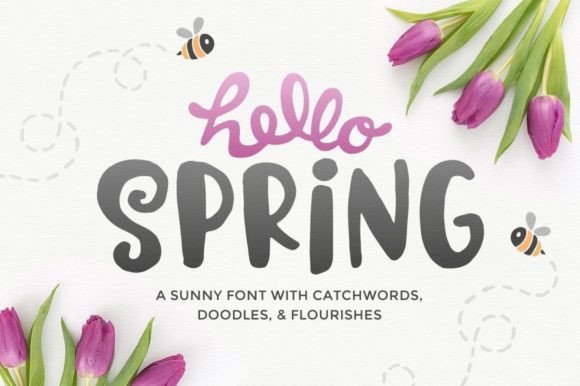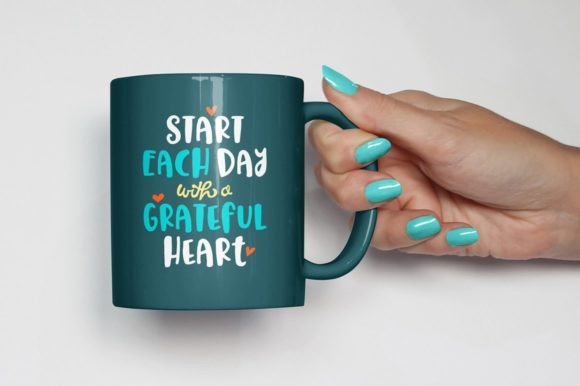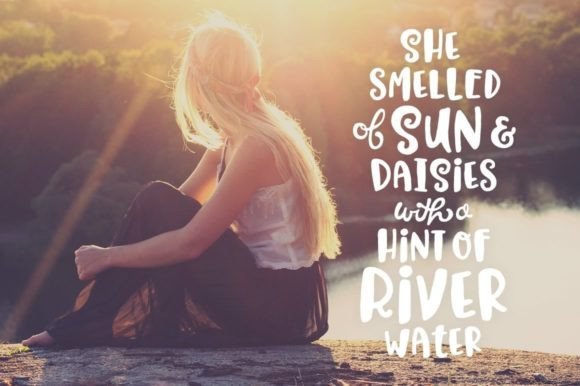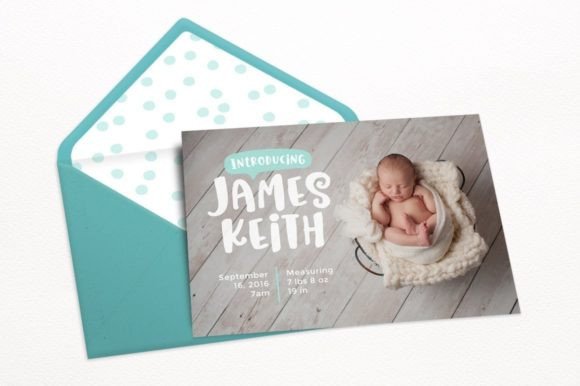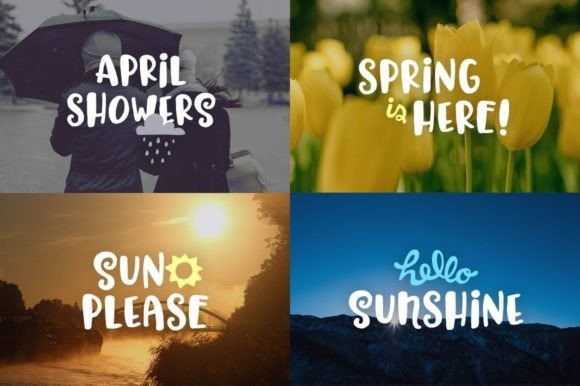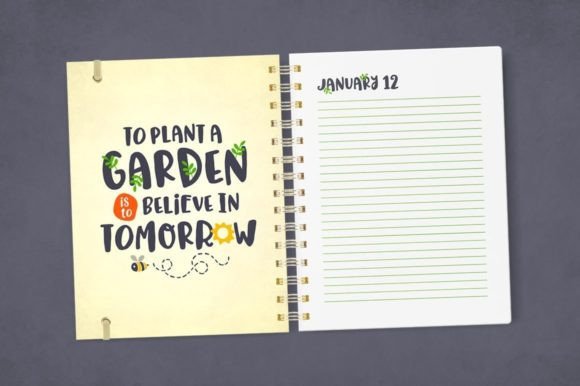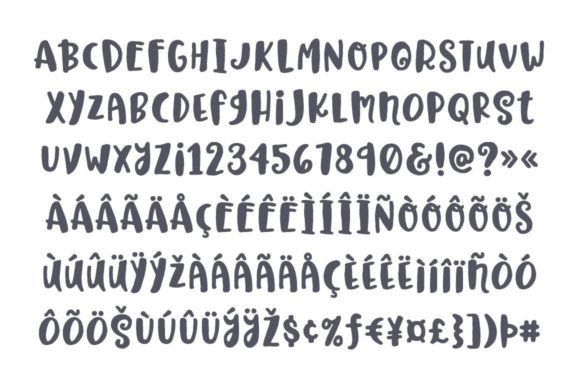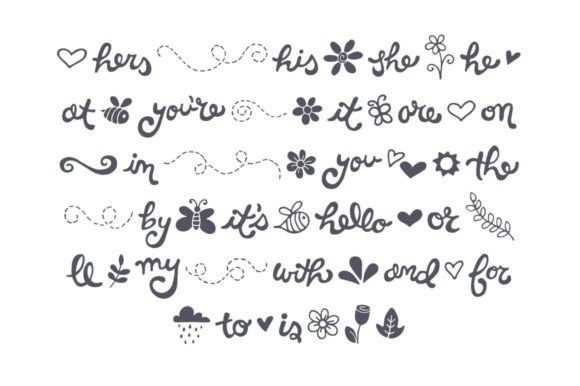
Baby animals, flowers blooming, birds chirping, it’s in the air: Hello Spring! An adorable, bold, hand-drawn font that comes with over fifty coordinating spring-themed catchwords, doodles, and flourishes to help give your projects that special touch.
Hello Spring Font